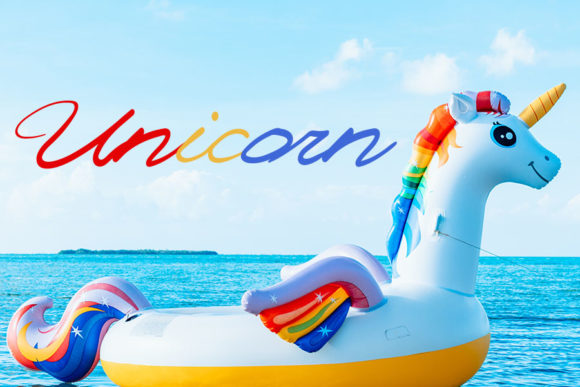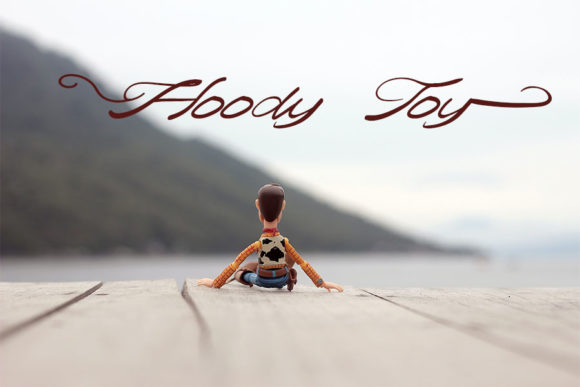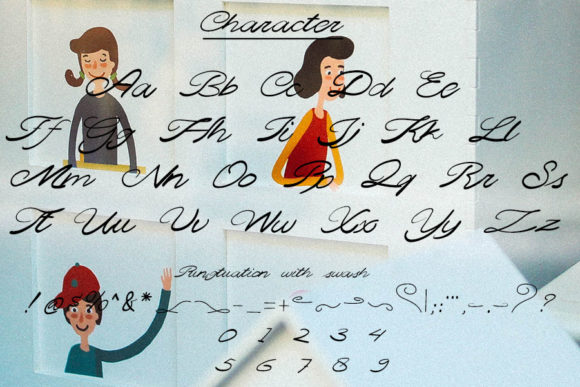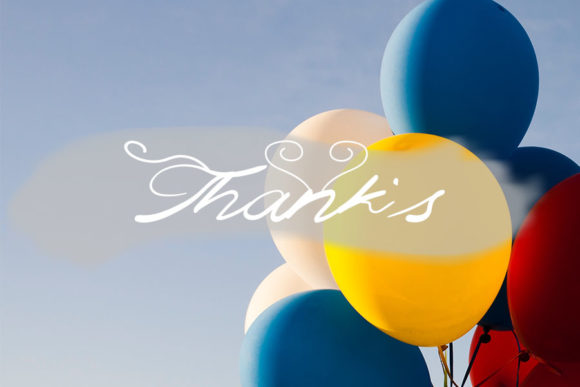
Lullaby Font
About Lullaby Font
Lullaby is a dainty and refined script font. This font is neatly crafted and highly detailed. Whatever the topic, this font will be a wonderful asset to your font library, as it has the potential to enhance any creation.